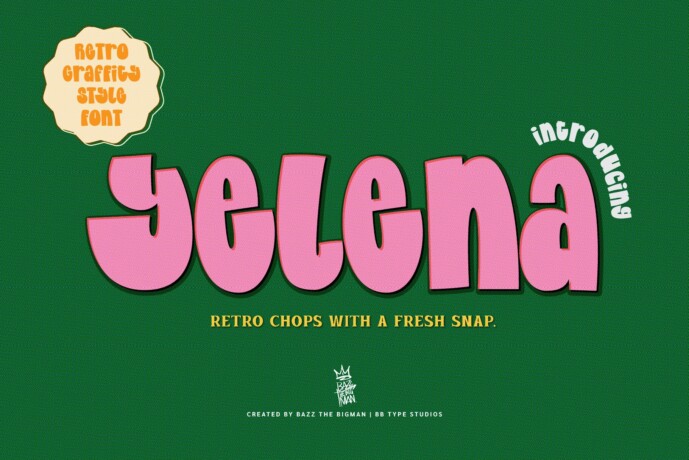
Yelena Font
Designer: BB Type Studios
Introducing Yelena, an era-defying font that marries both retro and modern pop art aesthetics beautifully. Infused with a bold charisma and an irresistibly bubbly character, Yelena is a dynamic typeface shaped by vibes of playful retro grooves. Crafted with artistic finesse, its vivacious curves and chunky forms imbue a delightful touch of personality into any project.
Ideal for creating magnetic visuals for beauty labels, empowering quotes for the ambitious woman entrepreneur, vibrant packaging materials, distinctive stickers, and more. Yelena isn’t just a font, it’s a visual language with multilingual support that is an absolute crowd-pleaser among content creators.